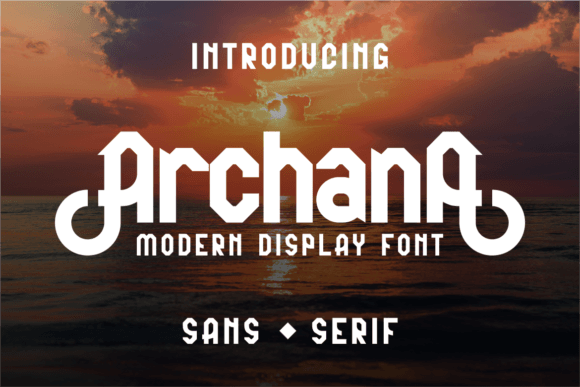
The Perfect Blend of Authenticity and Boldness: Discover Archana Font
Have you ever been working on a branding project and suddenly, an idea pops into your head that screams ‘this is it’? The excitement is palpable, and you can’t wait to bring that vision to life. For designers, moments like these are the essence of creativity, and the right font can make all the difference. That’s where the Archana Font comes in – a bold and authentic display font designed to elevate your branding projects to the next level.
Whether you’re working on a logo, t-shirt printing, product packaging, or any other creative endeavor, Archana Font is the perfect companion to help you achieve your goals. Its versatility and unique character make it a valuable addition to any designer’s toolkit, ensuring that your projects stand out from the crowd.
- Unique Characteristics: The font features a unique blend of traditional and modern design elements, making it an attractive choice for designers seeking a distinctive look.
Designer Review: Archana Font
Archana Font is a beautiful display font that can add an extra layer of elegance to your designs. It works well in ✨ bold headings and ✨ decorative titles where you need to make a statement. The intricate details and ornate flourishes in the font make it perfect for luxury brands, wedding invitations, or any project that requires a touch of sophistication.
- Works well in large font sizes
- Perfect for bold headings and decorative titles
- Elegant and sophisticated design
However, ⚠️ there are some limitations to consider when using Archana Font. It can be difficult to read in ⚠️ small font sizes or ⚠️ long blocks of text, which can make it challenging to use for body text or paragraphs. Additionally, the font’s intricate details can make it ⚠️ prone to pixelation when used at low resolutions.
Overall, I think Archana Font is a great choice for designers who want to add a touch of luxury and sophistication to their designs. While it may have some limitations, its unique design and elegant feel make it a great option for the right projects.
Tips: Use Archana Font for creating elegant and traditional designs, especially for Indian-inspired themes. Experiment with different font sizes and colors to achieve the desired look.
Tips: Use Archana Font for creating intricate and ornate designs, especially for invitations, certificates, and other formal documents.
Tips: Use Archana Font for creating traditional and elegant designs, especially for presentations, reports, and other business documents.